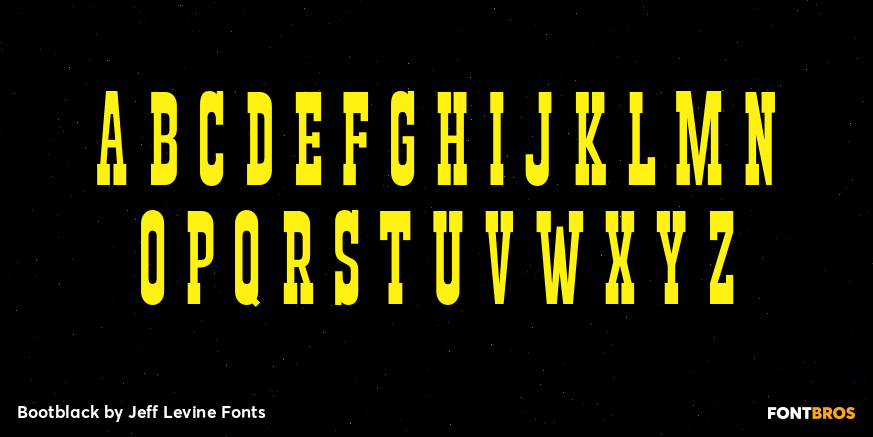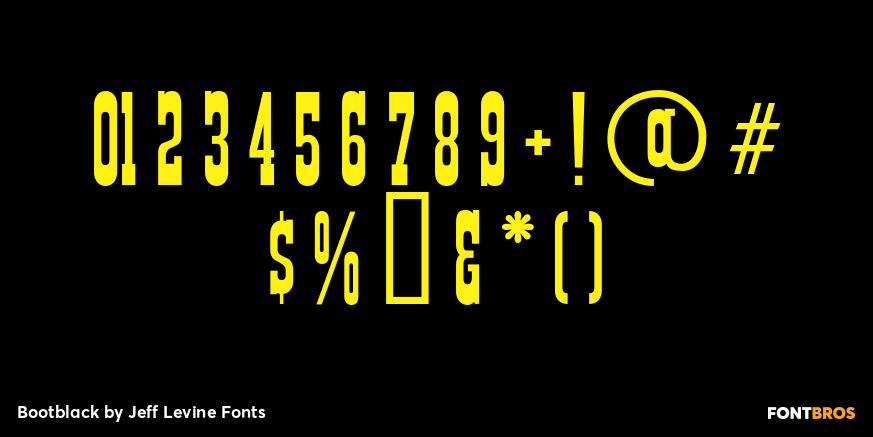
Bootblack
Where Bootspur JNL combined elements of Western and Art Deco, its more traditional "cousin" is Bootblack JNL - a straightforward Western Font in look and design.